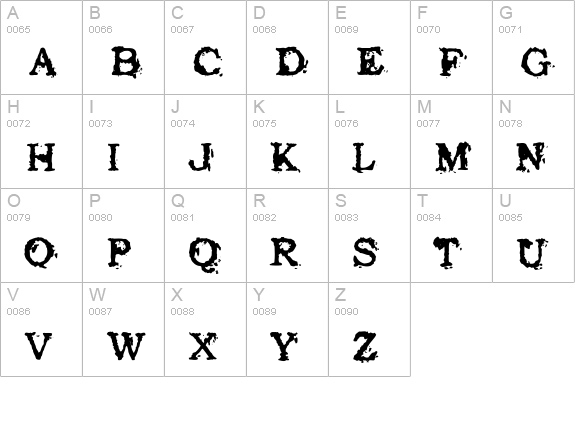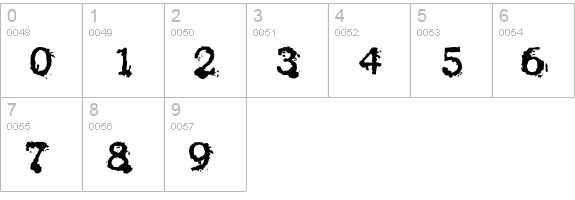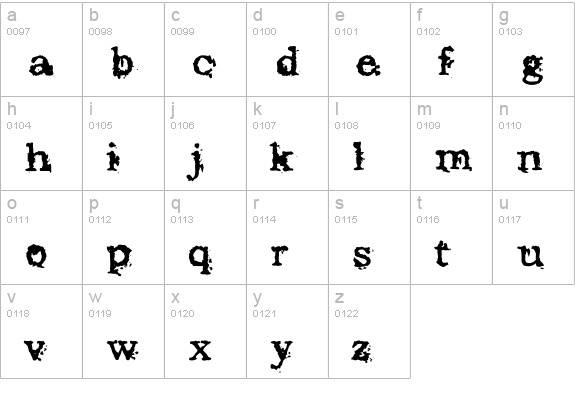
Struck Dead Font Details
Introducing the captivating and edgy Struck Dead font! With its bold and striking design, Struck Dead is perfect for adding a touch of drama to your projects. This unique font features sharp edges and a powerful presence that demands attention. Whether you're designing posters, album covers, or logos, Struck Dead is sure to make a bold statement. The best part? Struck Dead is completely free to download at FontsMarket.com. Don't miss out on this opportunity to add a touch of attitude and flair to your designs with the eye-catching Struck Dead font. Download it today and unleash your creativity!